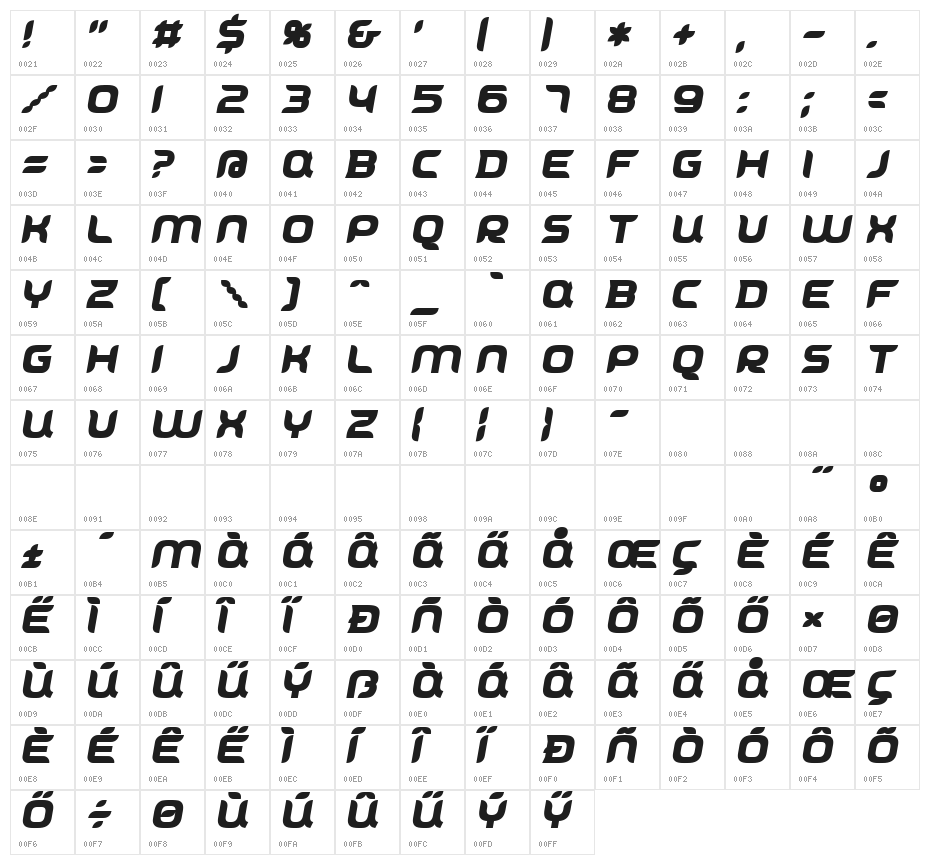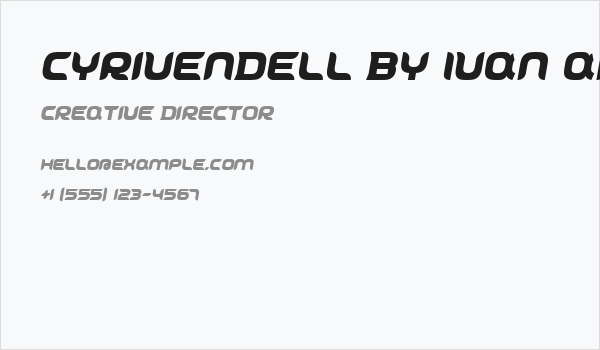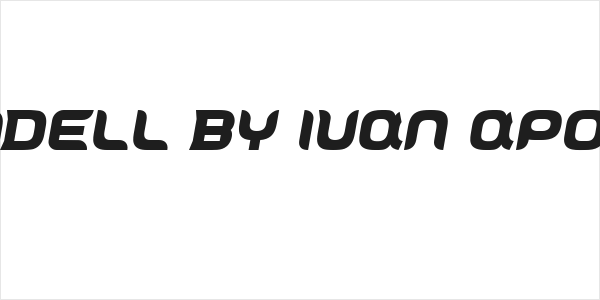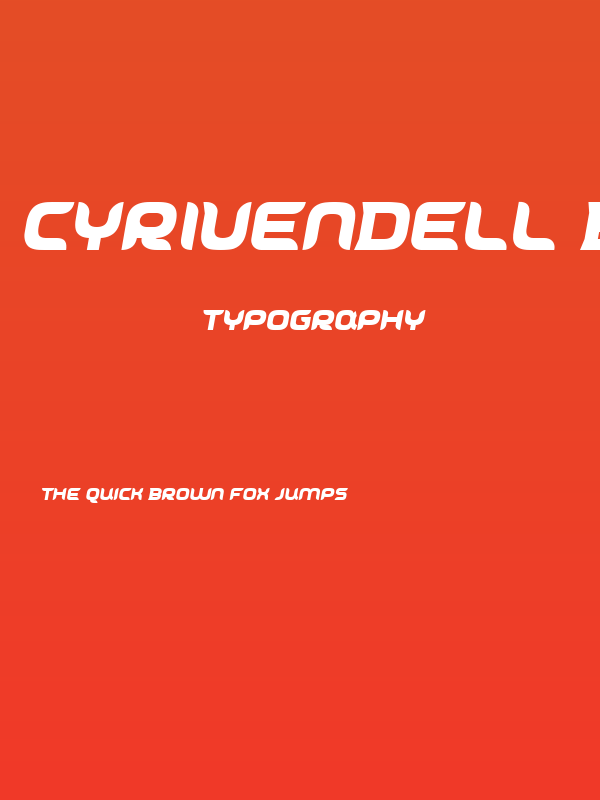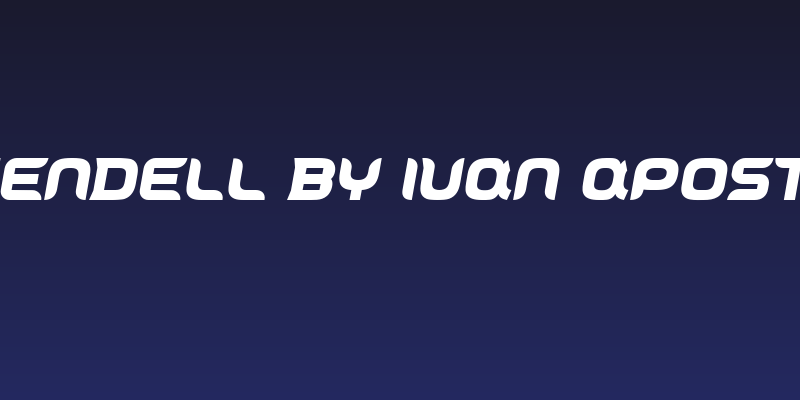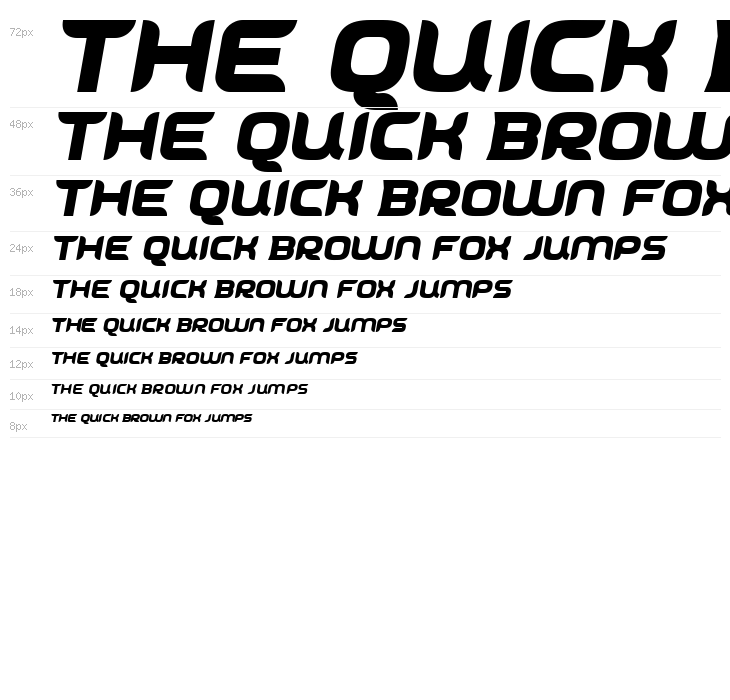
Cyrivendell by Ivan Apostolski Font
Cyrivendell by Ivan Apostolski Description
This font features a bold and dynamic style with a futuristic flair. The characters are slightly slanted, giving a sense of motion and energy. The strokes are thick and consistent, providing a strong visual impact. The design incorporates smooth curves and sharp angles, creating a unique and modern appearance. The uppercase and lowercase letters maintain a cohesive look, while the numerals and special characters complement the overall aesthetic. This font is ideal for projects that require a bold statement and a contemporary feel.
| Proposed Projects | Ideal for branding, posters, video game graphics, and sci-fi themed designs. |